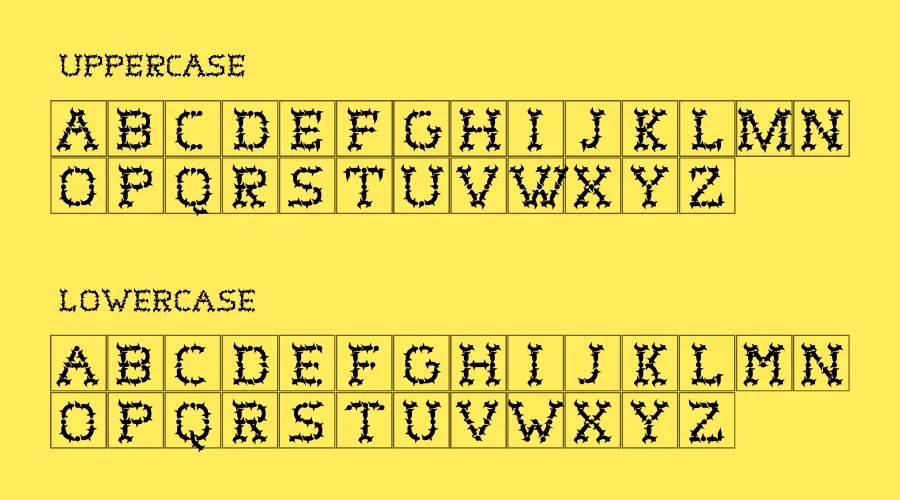
About Wurst Cactus Font
Wurst Cactus Font is designed by Robert Schenk it is a fancy text style. This typeface has special letters with an elegant look that are very useful for designers. Because of the strong and displayed characters, it is often used for titles and headlines.
Display designs and thin corners can be created with this stunning piece. The designs are very stylish of this font. It comes in a unique weight, making it suitable for a variety of designs.